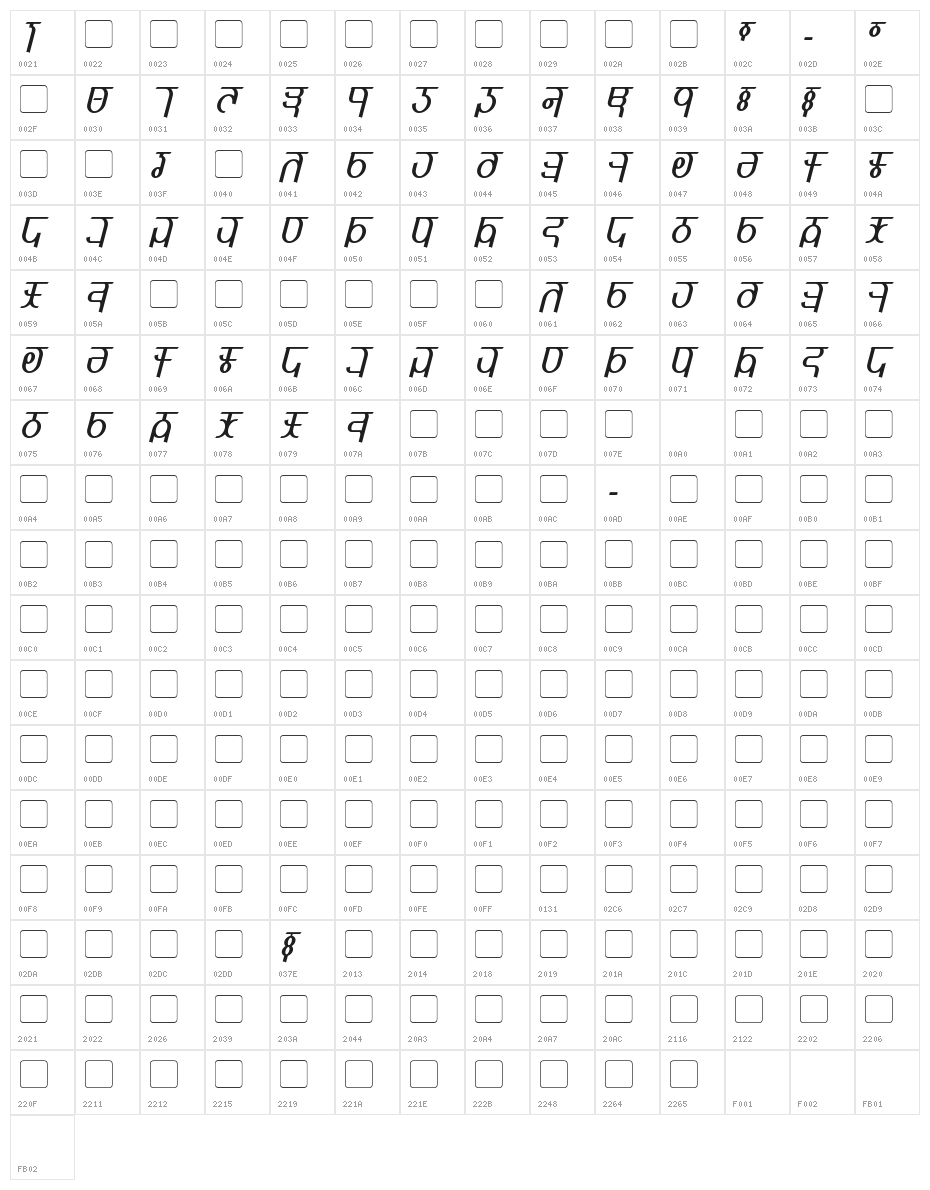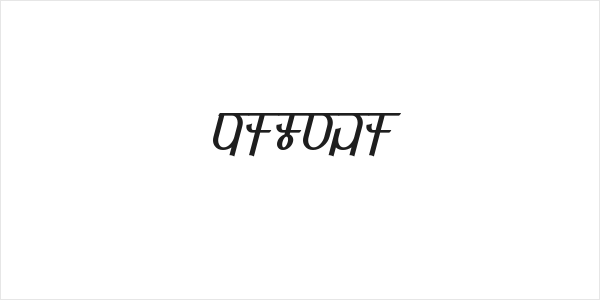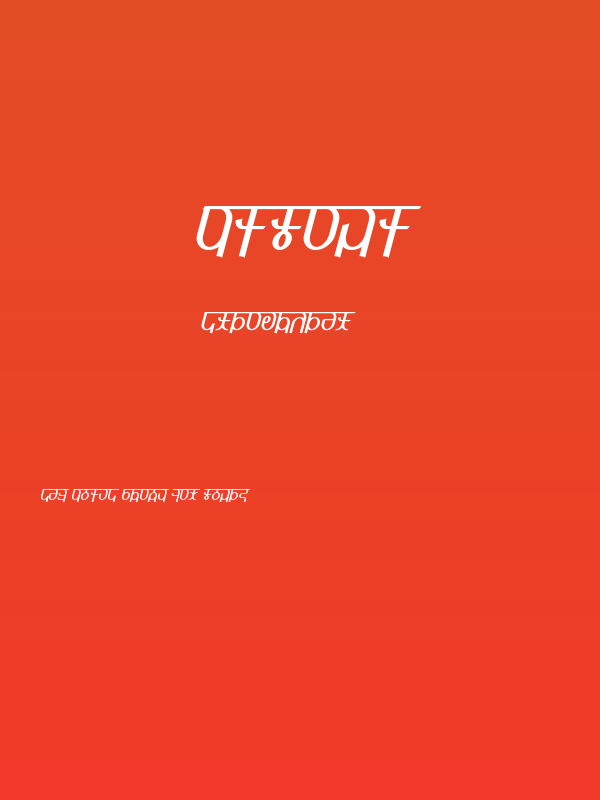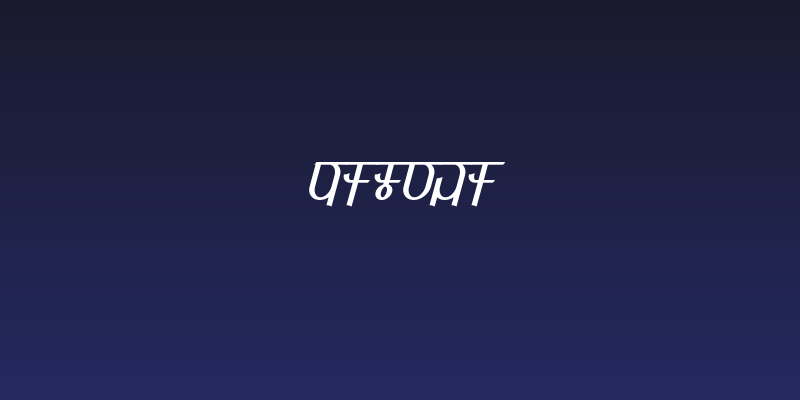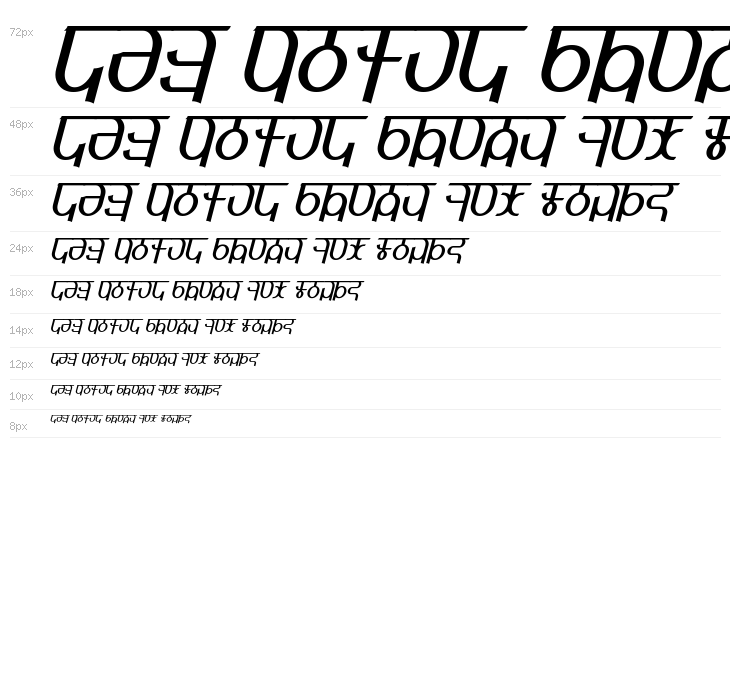
Qijomi Font
Qijomi Description
This font features a unique and artistic script style, characterized by its flowing and connected letterforms. The strokes are smooth and exhibit a rhythmic quality, with a slight slant that adds a sense of motion and elegance. The characters have a consistent weight, providing a balanced appearance across the text. The font's design incorporates both traditional and contemporary elements, making it versatile for various applications. Its distinctiveness lies in the intricate curves and loops, which give it a decorative flair while maintaining readability.